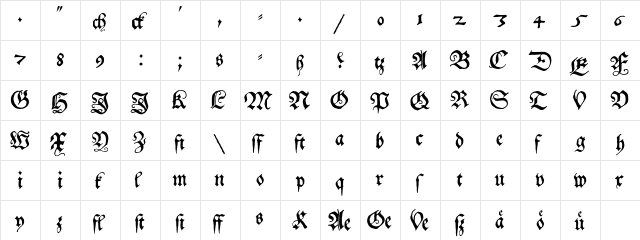
Alte Schwabacher Regular
Design Context for Alte Schwabacher Typeface
Alte Schwabacher is a composed and adaptable typeface that performs quietly and consistently across a wide range of design contexts.